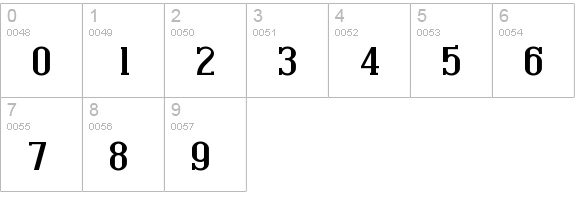
Covington Exp Bold Font Details
Covington Exp Bold is a strong, high-contrast variant in the Covington typeface family \xE2\x80\x94 well suited to headlines, attention-grabbing titles, and strong calls-to-action.
Covington Exp Bold is a striking and versatile font that exudes confidence and modernity. With its bold and expressive letterforms, this font is perfect for making a statement in any design project. Whether you're creating a bold headline or a standout logo, Covington Exp Bold is sure to grab attention and leave a lasting impression. The best part? Covington Exp Bold is available for free download at FontsMarket.com. This means you can easily access this eye-catching font and incorporate it into your designs without any cost. Don't miss out on the opportunity to elevate your design projects with the bold and impactful Covington Exp Bold font - download it for free today at FontsMarket.com.